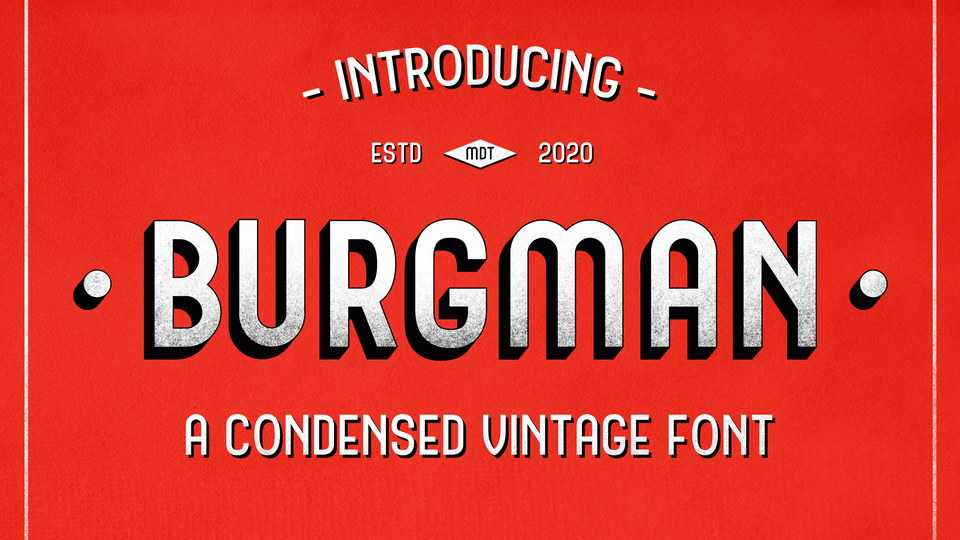
Download Burgman Sans font, a vintage condensed sans serif typeface. Burgman Sans is perfect for creating sleek vintage designs used for branding, packaging, apparel and much more!
Designer: Áron Farsang